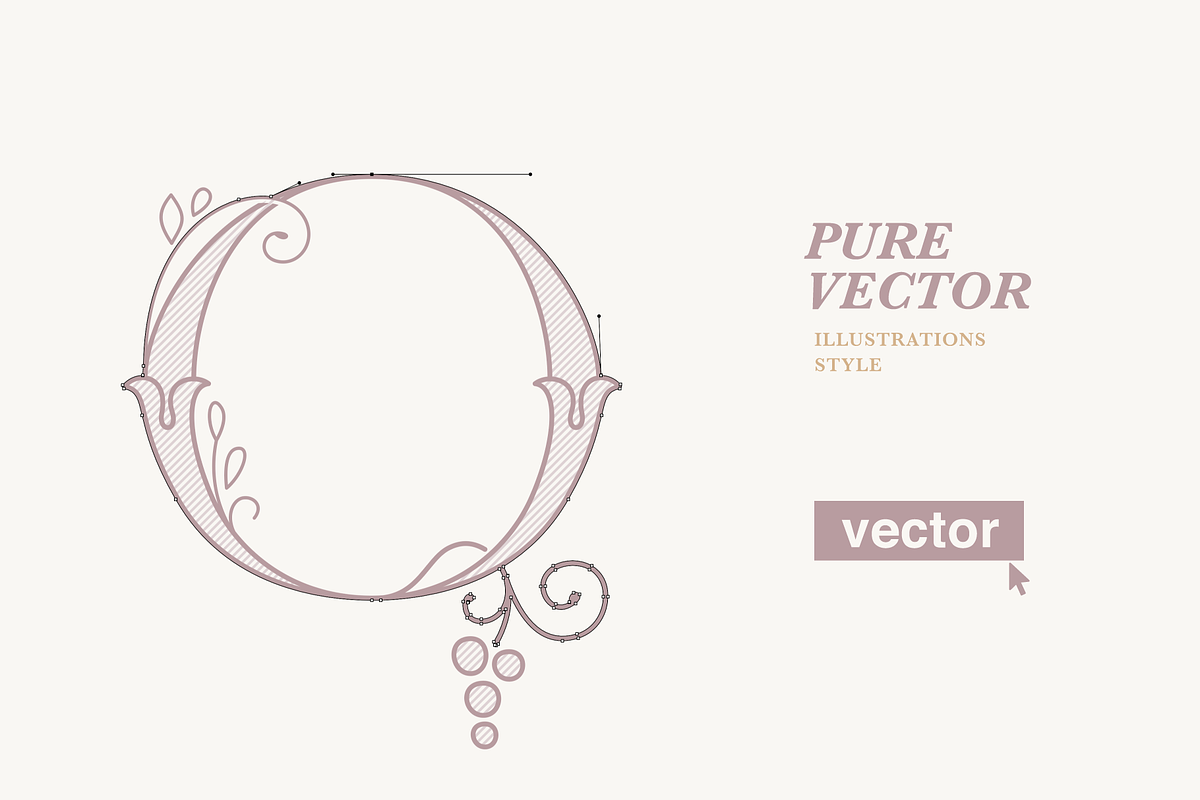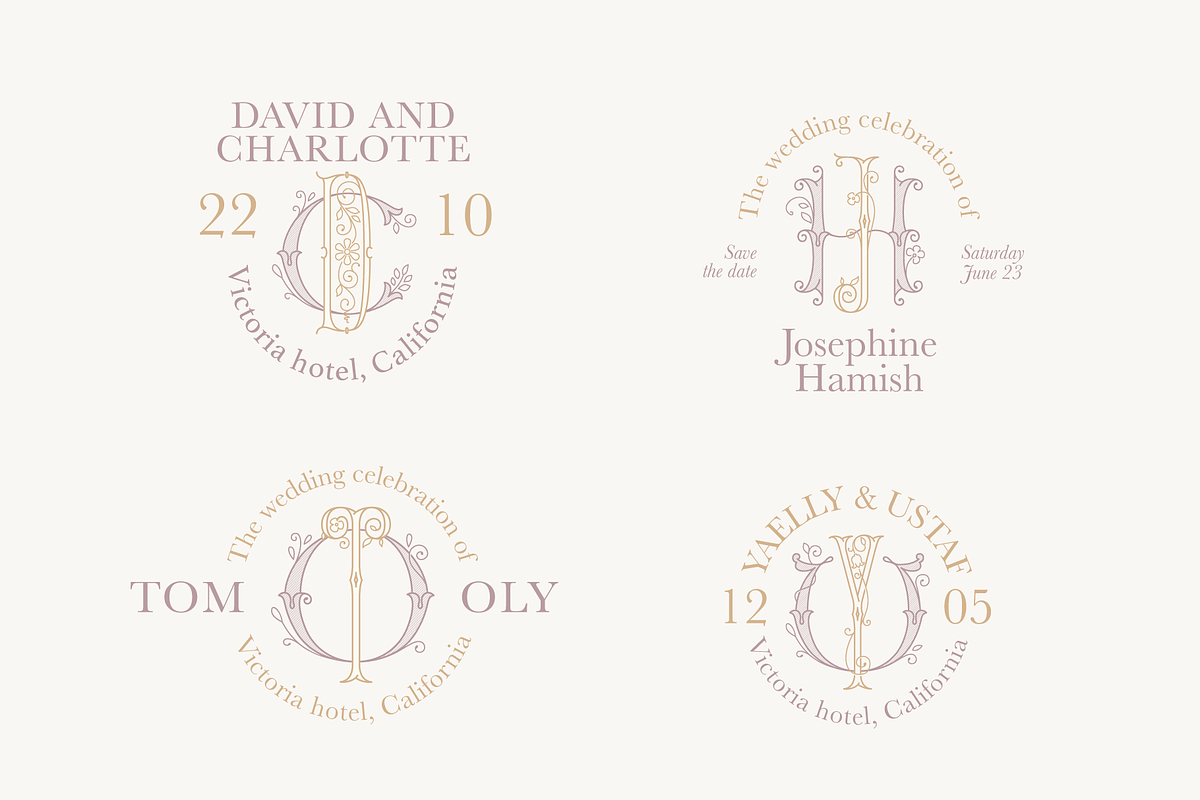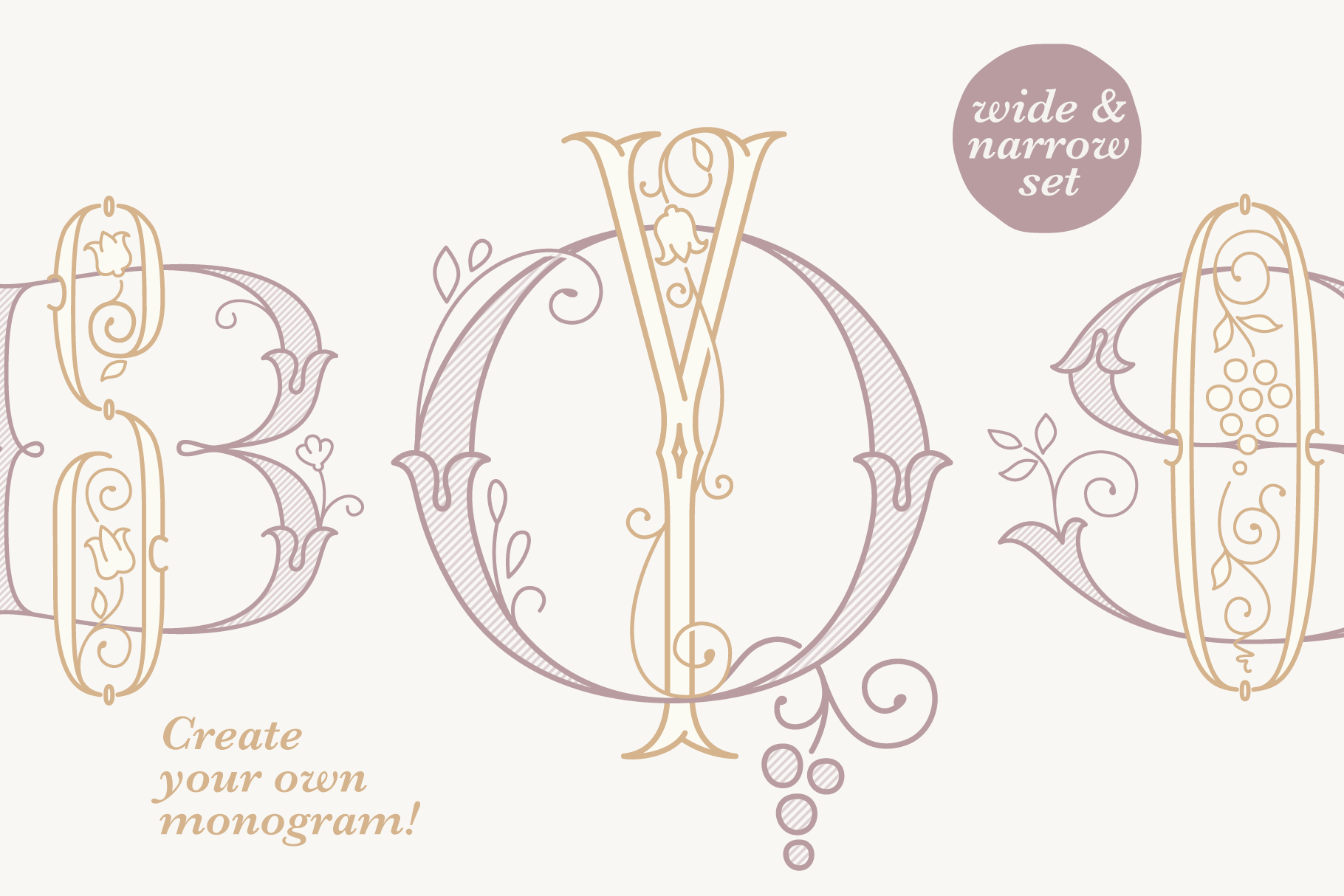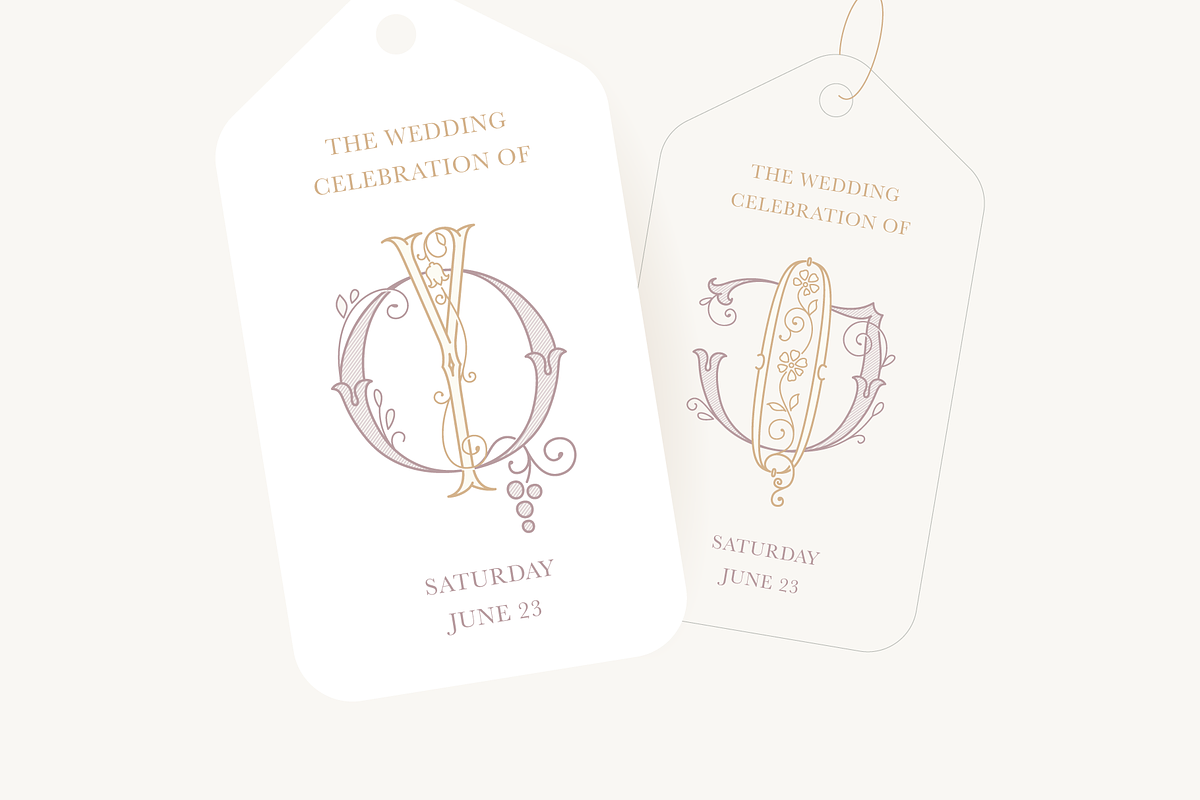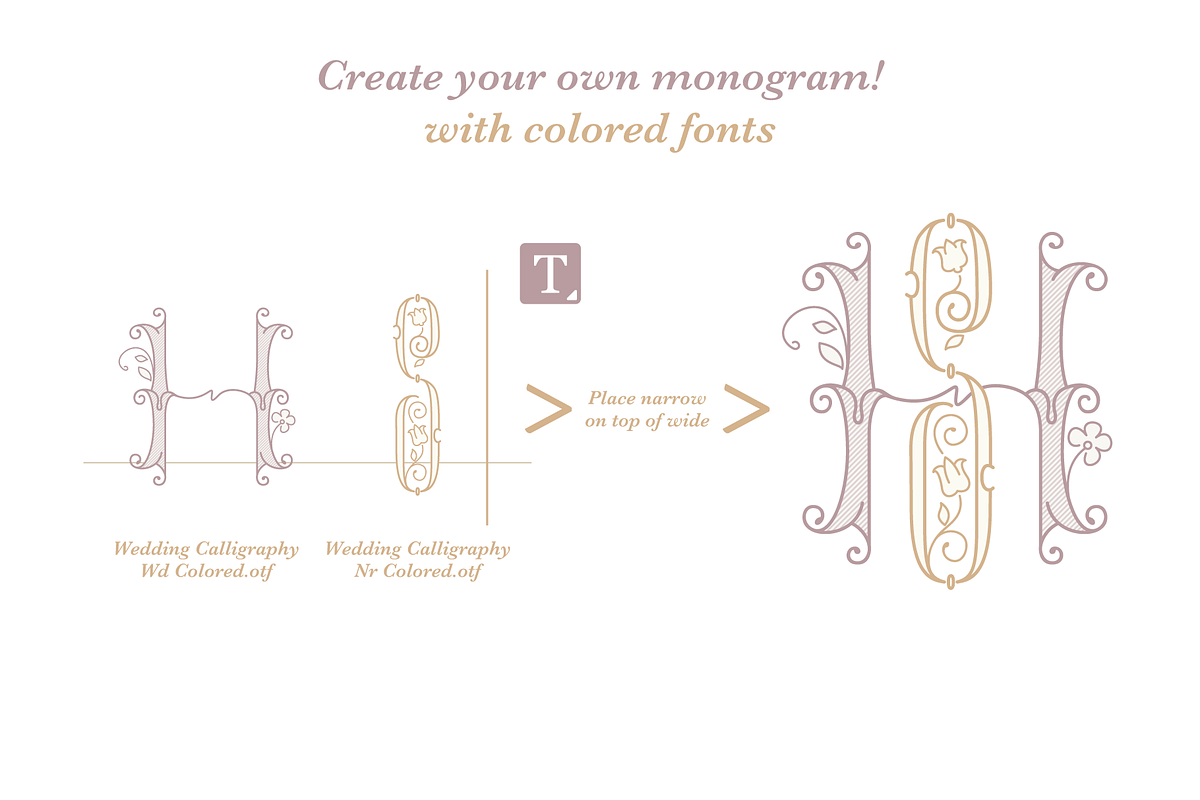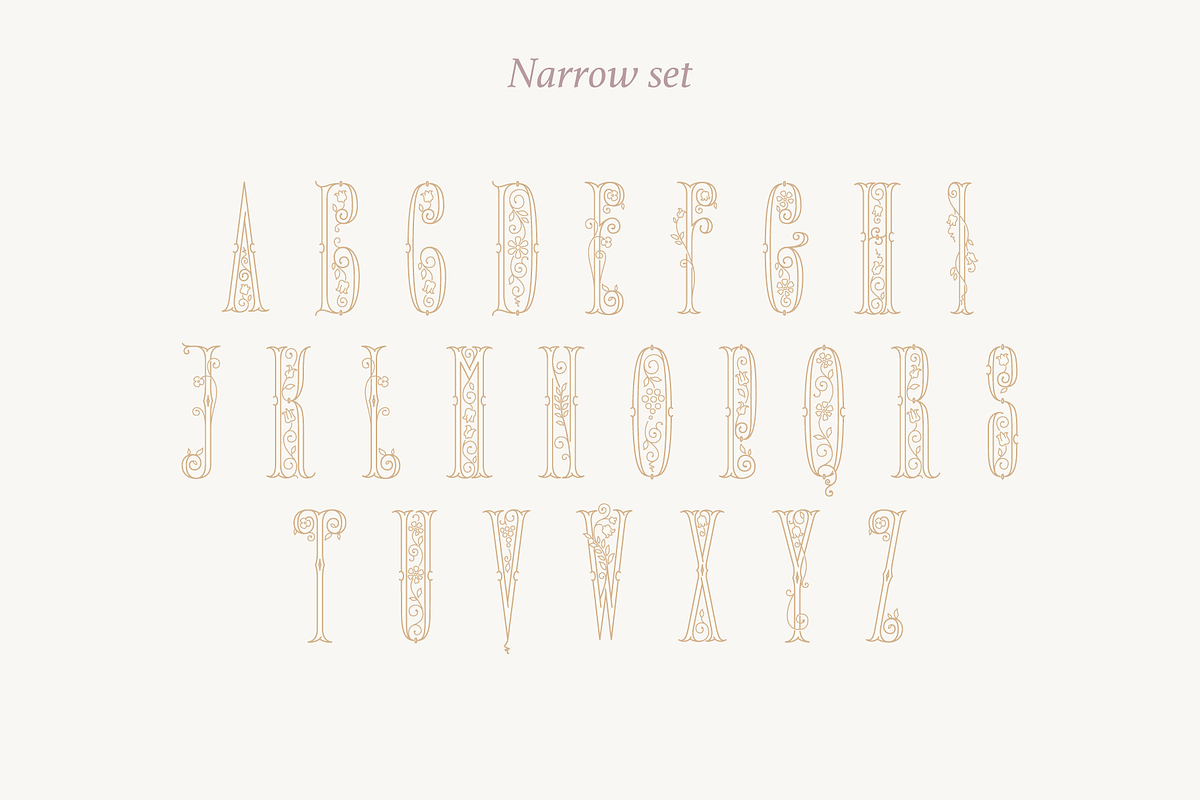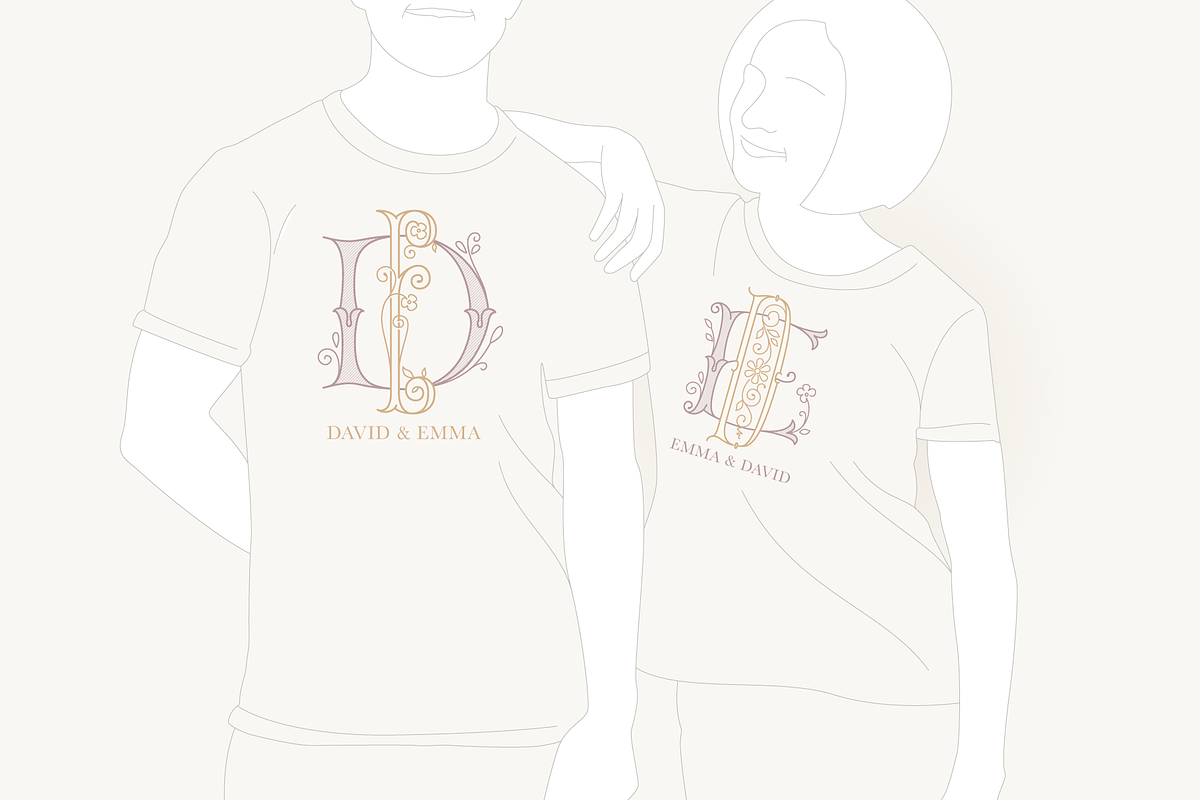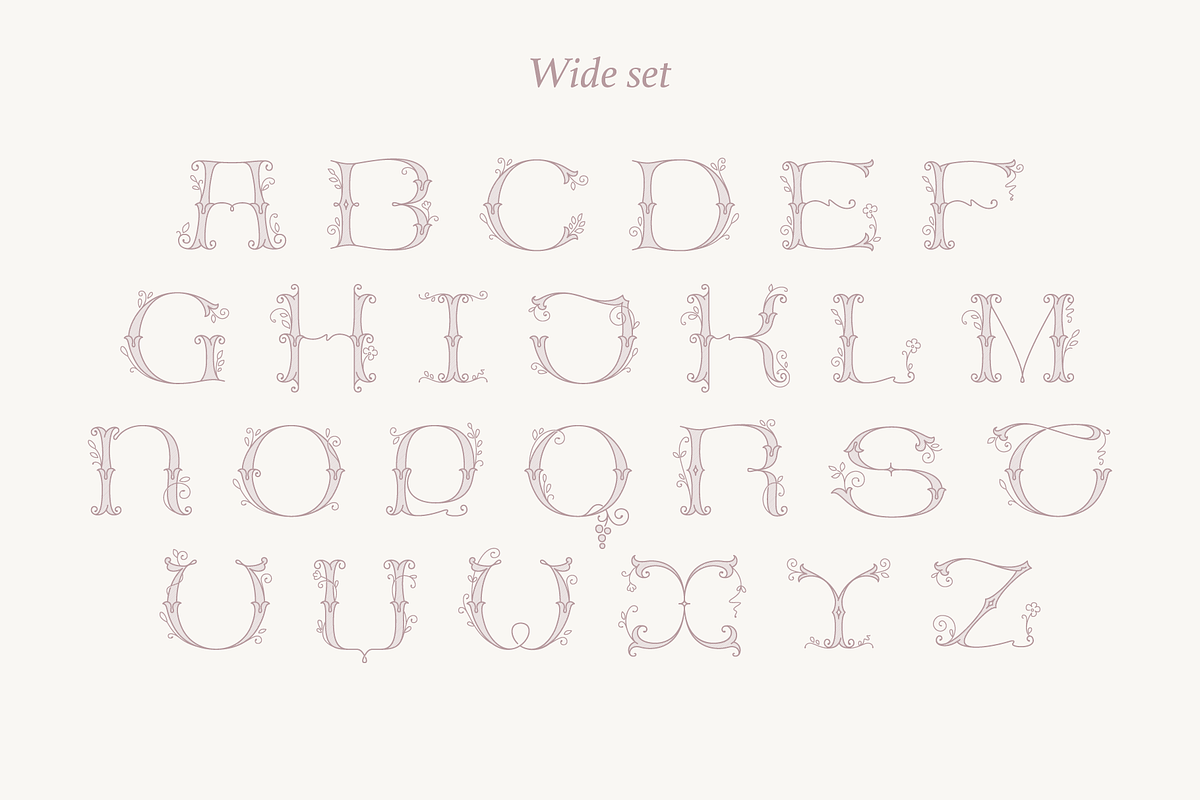
Wedding Calligraphy font family
Wedding Calligraphy is a font family in elegant historical style with floral and vine-inspired details, evoking a romantic vintage and Art Nouveau aesthetic. Soft pastel tones and fine linework give the alphabet a light, graceful, hand-drawn feel. Perfect for wedding monograms, invitations, crests, logos, stationery, seals, and decorative branding elements.
You’ll get the set includes Wide and Narrow capitals, allowing flexible and balanced monogram compositions. +SVG file as well.